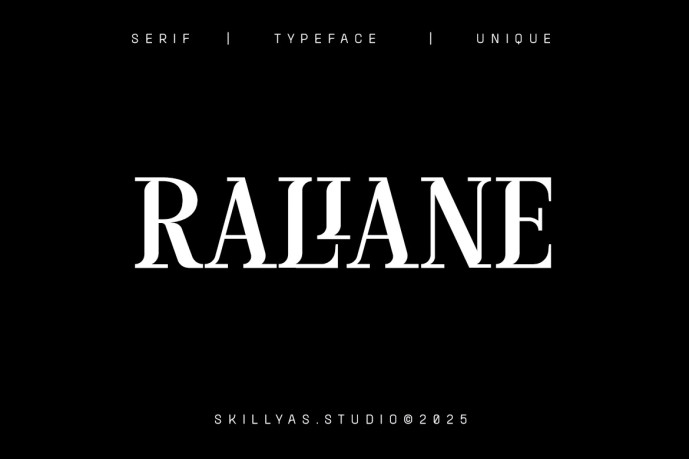
Raliane Unique Display Serif Font
Raliane Unique Display Serif Font is a stylish and artistic typeface designed to bring a bold personality to your visual projects. With its distinctive serif details and modern display style, it’s perfect for logo designs, editorial headlines, branding elements, posters, and high-end packaging. Raliane adds a sophisticated and creative touch, making your typography stand out with elegance and uniqueness.
Character Details:
• Includes Uppercase & Lowercase Letters
• PUA Encoded Range with Standard Alternative Styles
• Standard & Discretionary Ligatures
• Multilingual Support